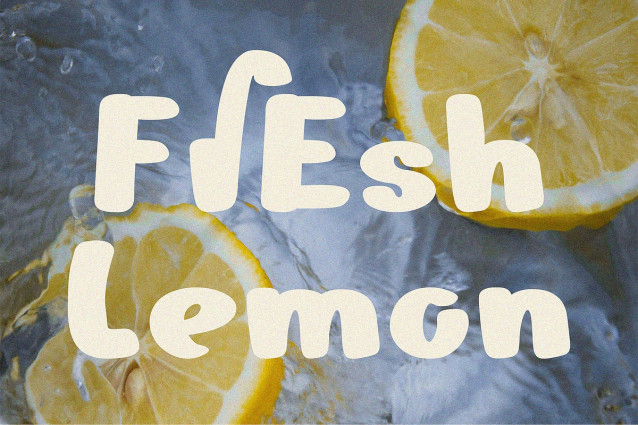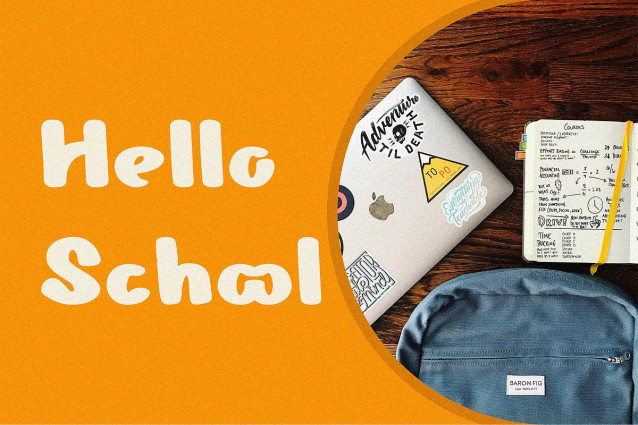
Baffelo Playful Font
Baffelo Playful Font: has a playful and playful style with rounded, bold, slightly irregular letters that give off a playful and relaxed feel. The bold letters make it easy to read and instantly grab attention. This typeface is great for children’s themes, fun events, food, snacks, chocolate, ice cream, candy, or baby products, as it gives off a sweet, playful, and friendly feel.